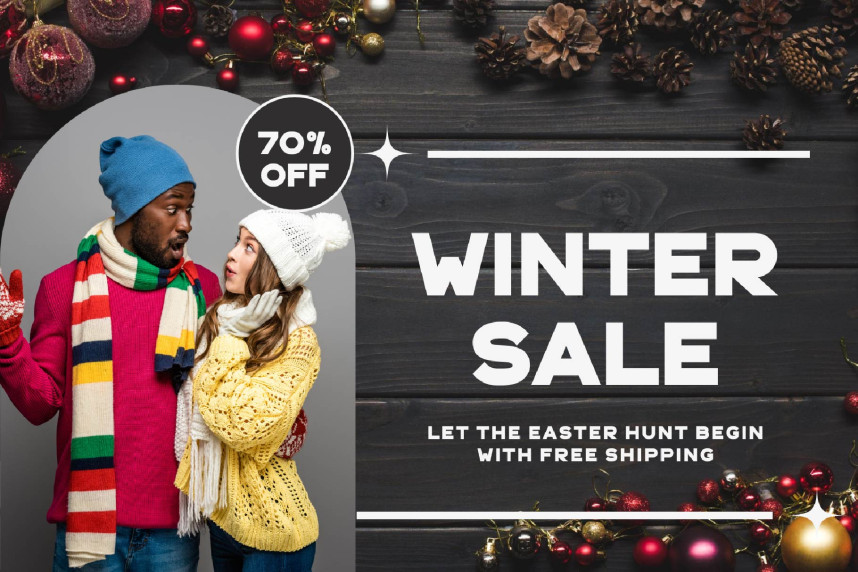
Amora Sans Font
Amora Sans Font inspired by the famous minimalist logo perfect for the purposes of designing templates, brochures, videos, advertising branding, logos, invitation, layout design, elegant crafting, beauty design and other.